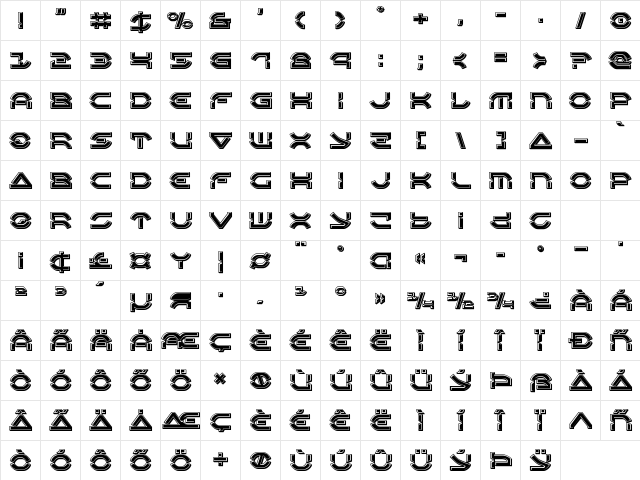
Oberon Deux Bevel Regular
Oberon Deux Bevel Family
Design Context for Oberon Deux Bevel
Oberon Deux Bevel is a composed and adaptable typeface that performs quietly and consistently across a wide range of design contexts.